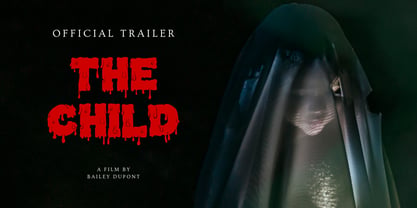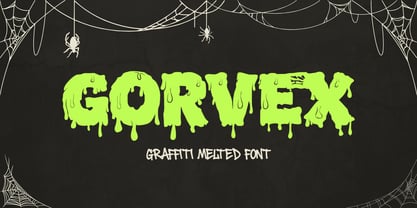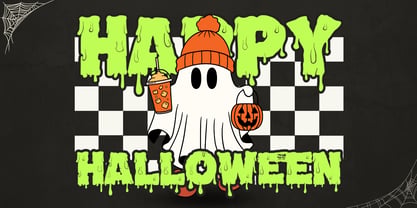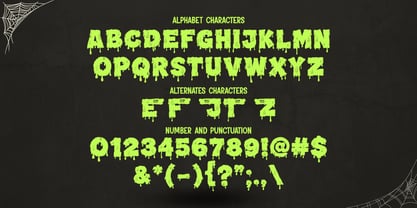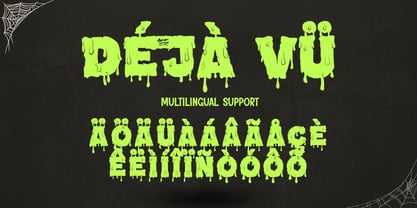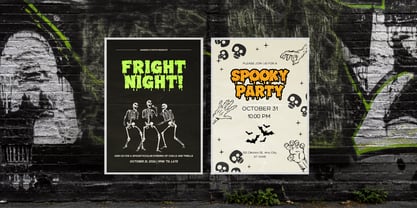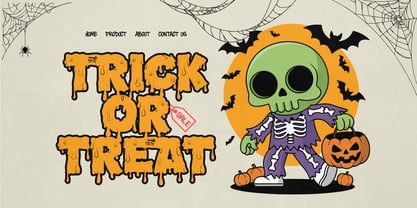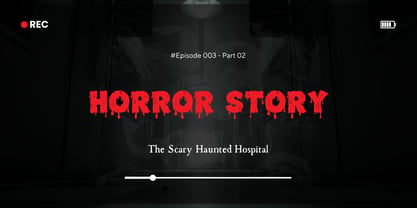
Gorvex
Gorvex is a melted Halloween graffiti display font created for designers who want to combine spooky seasonal aesthetics with the raw energy of urban lettering. Inspired by melting graffiti, dripping paint, creepy slime, Halloween monsters, haunted streets, and expressive graffiti tags, Gorvex transforms ordinary words into dramatic display typography with an unmistakable Halloween attitude.
The defining feature of Gorvex is its melted construction. Letterforms appear to stretch, drip, and flow as though they have been created from melting paint or supernatural slime. This effect creates a dynamic visual rhythm that makes every headline feel energetic and slightly unsettling. The result is a unique combination of street graffiti attitude and spooky Halloween character.